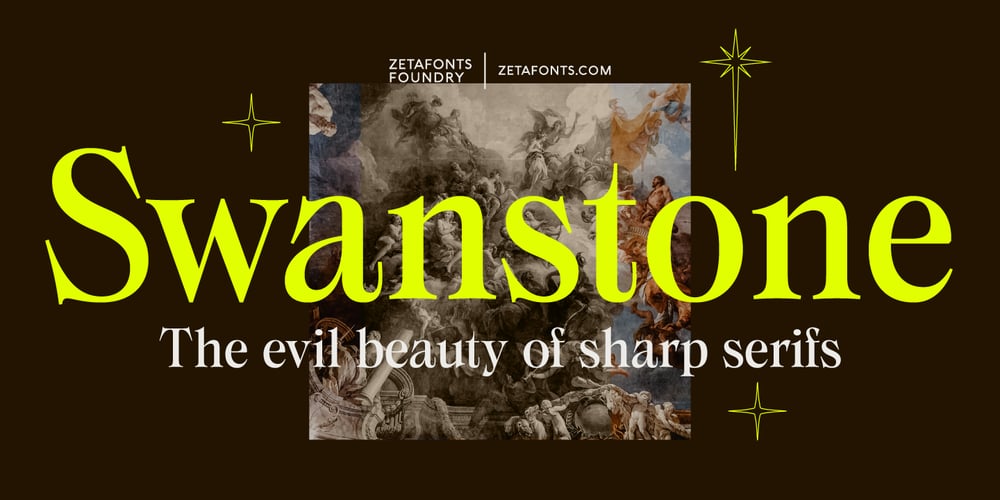
Swanstone Font Family was designed by Mario De Libero and published by Zetafonts. Swanstone contains 1 styles and family package options. Mario De Libero designed Swanstone while investigating XIX Century Old Style typefaces. Designs like Theophile Beaudoire’s Romana (1860) or Miller & Richard’s Modernized Old Style, that re-imagined the classical “Venetian” letterforms adding flared serifs and early Art Nouveau influences. In Italy, one of these fonts was Raffaello Bertieri’s Raffaello, which De Libero used as the starting point of his research in a contemporary retelling of these exuberant and sexily unsettling letterforms.